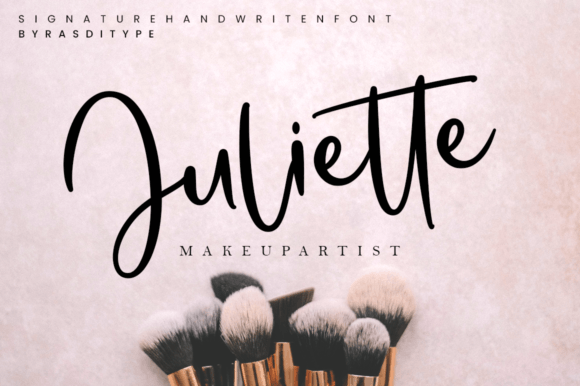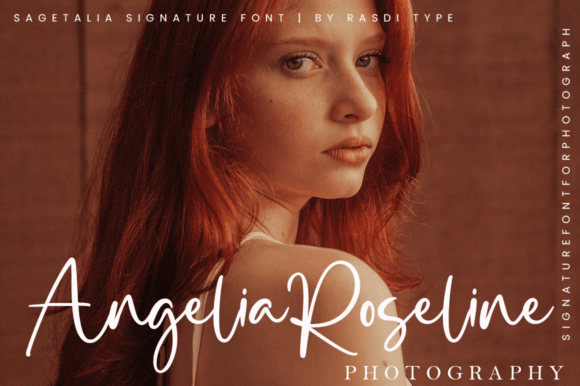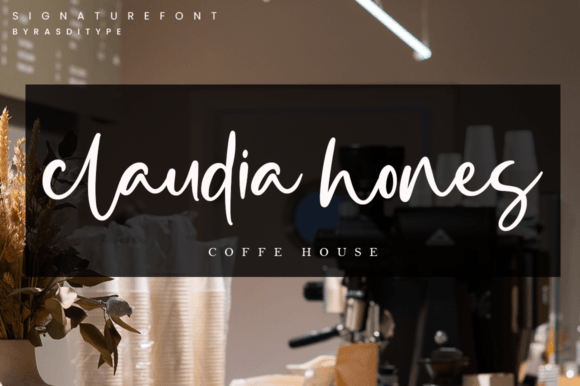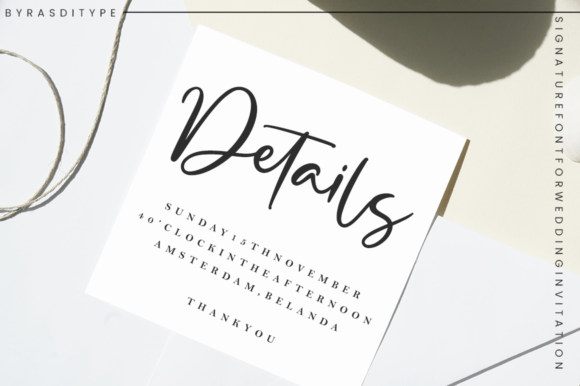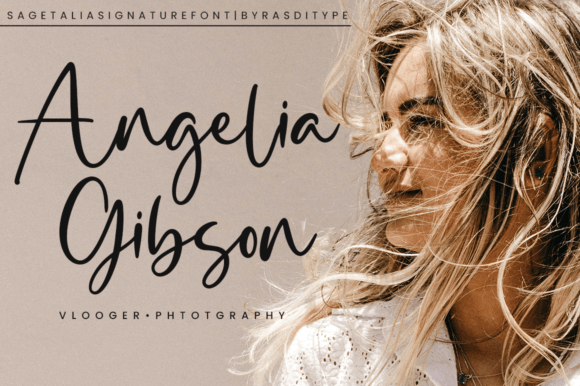
Sagetalia is a beautiful handwritten font ideal for logos, wedding stationery, photographic watermarks, modern websites, and more. Fall in love with its completely different and timeless style, and use it to create spectacular designs!
Sagetalia Font